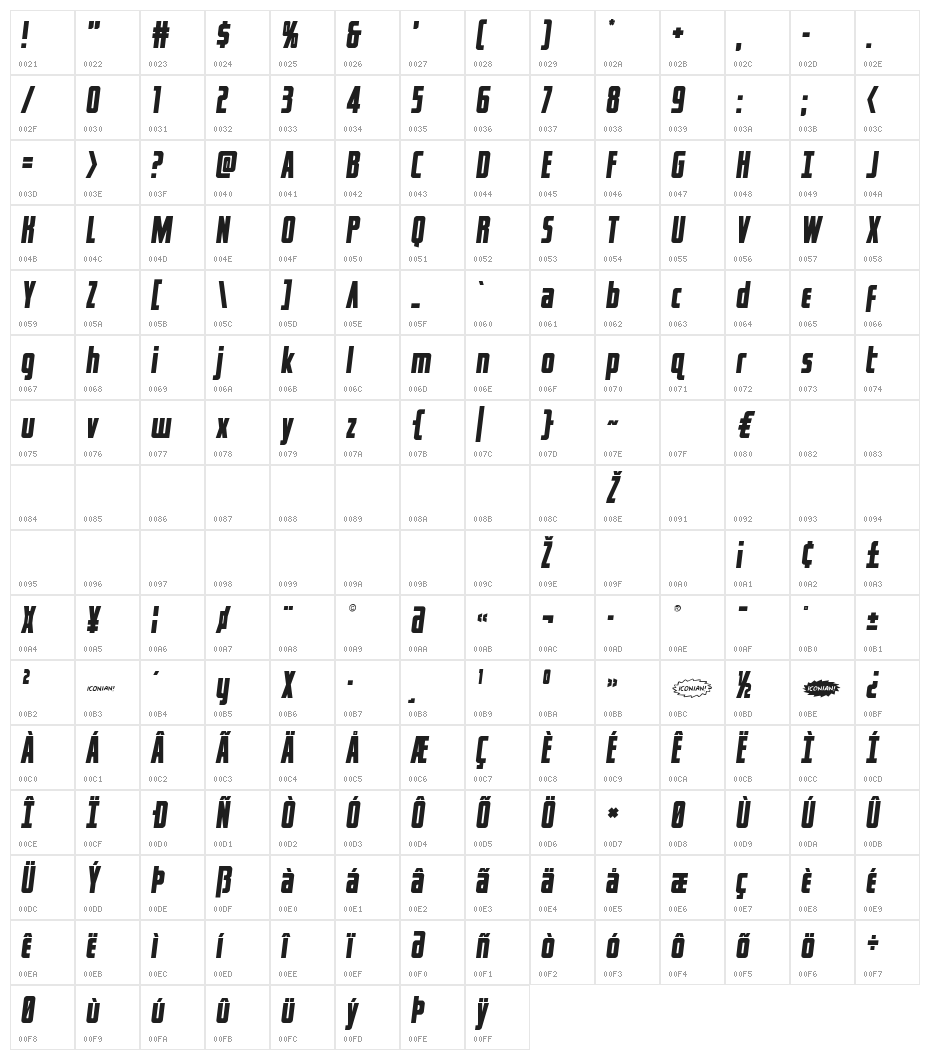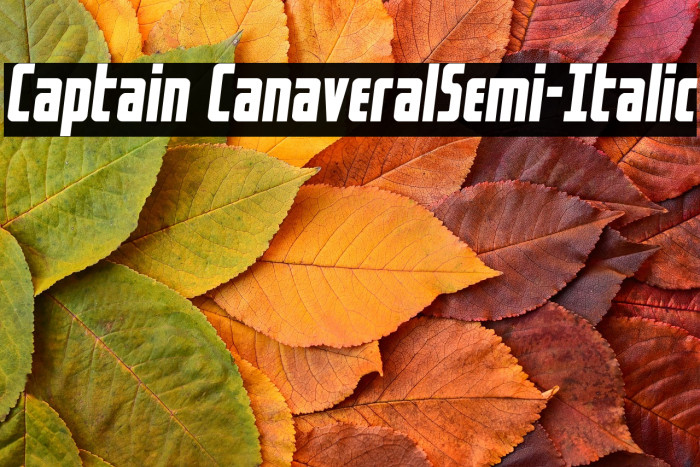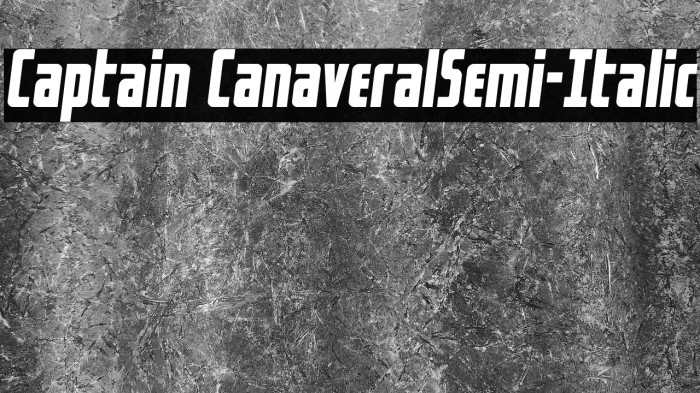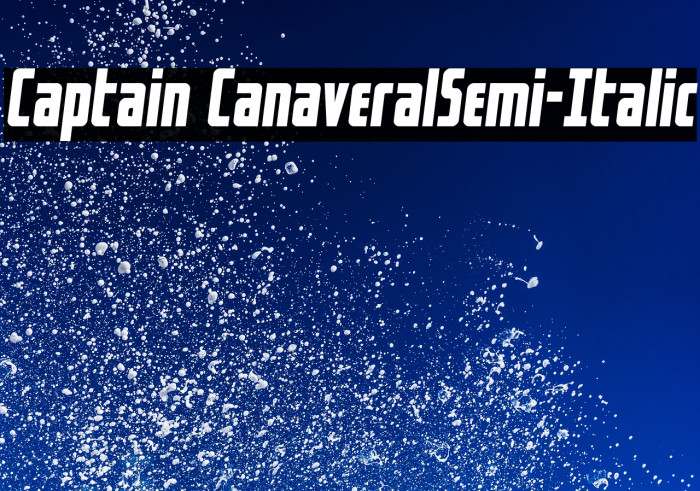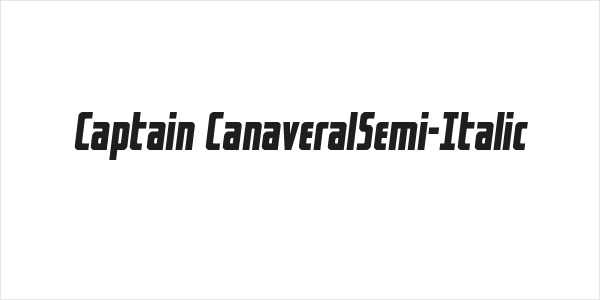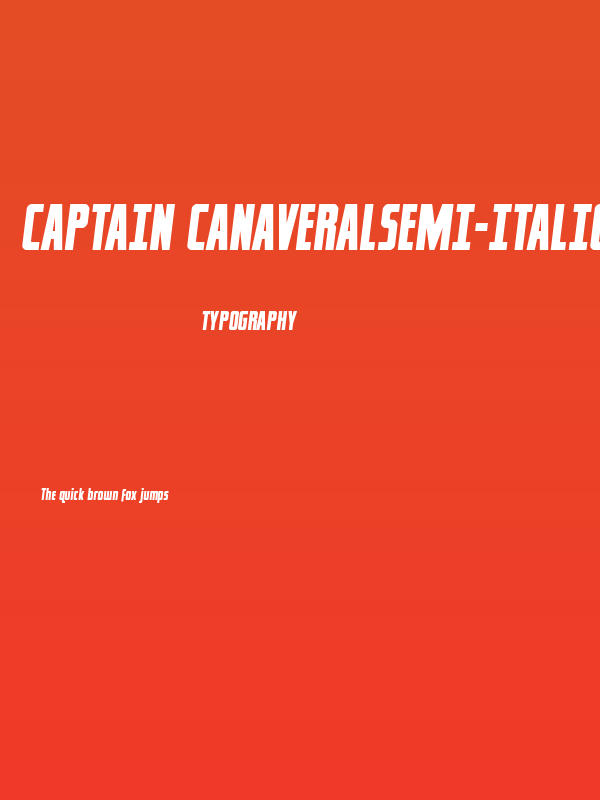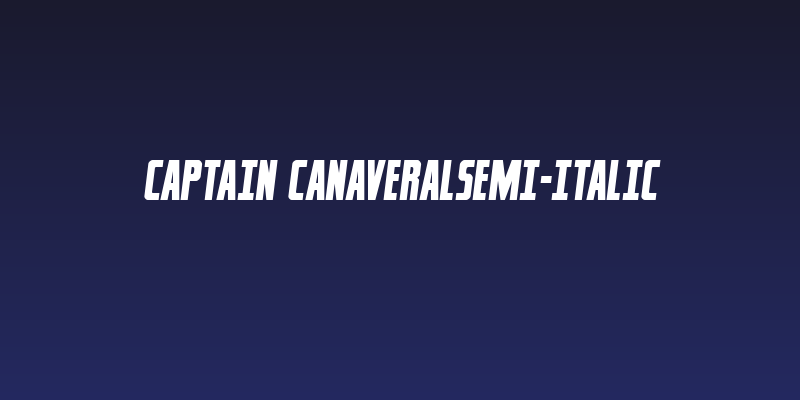
Captain CanaveralSemi-Italic Font
Captain CanaveralSemi-Italic Description
This font features a bold and dynamic style with a semi-italic slant, giving it a sense of motion and energy. The characters are robust and slightly condensed, creating a strong visual impact. The uppercase letters are tall and commanding, while the lowercase letters maintain a consistent height, ensuring readability. The numerals are equally bold, matching the assertive style of the alphabet. Special characters are designed with the same boldness, making them stand out. The overall design is modern and suitable for attention-grabbing headlines or branding.